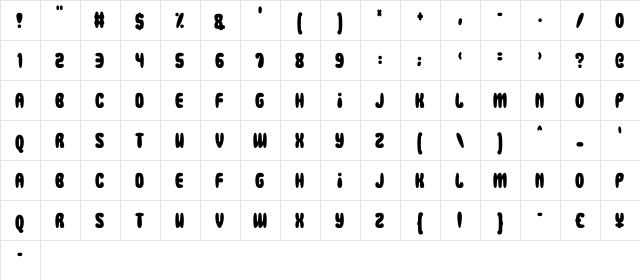
Squidgy Slimes Regular
Design Context for Squidgy Slimes Typeface
Squidgy Slimes is a composed and adaptable typeface that performs quietly and consistently across a wide range of design contexts.
Pro Tip: Use Squidgy Slimes in both headline and body roles to test its range before committing to a single application.